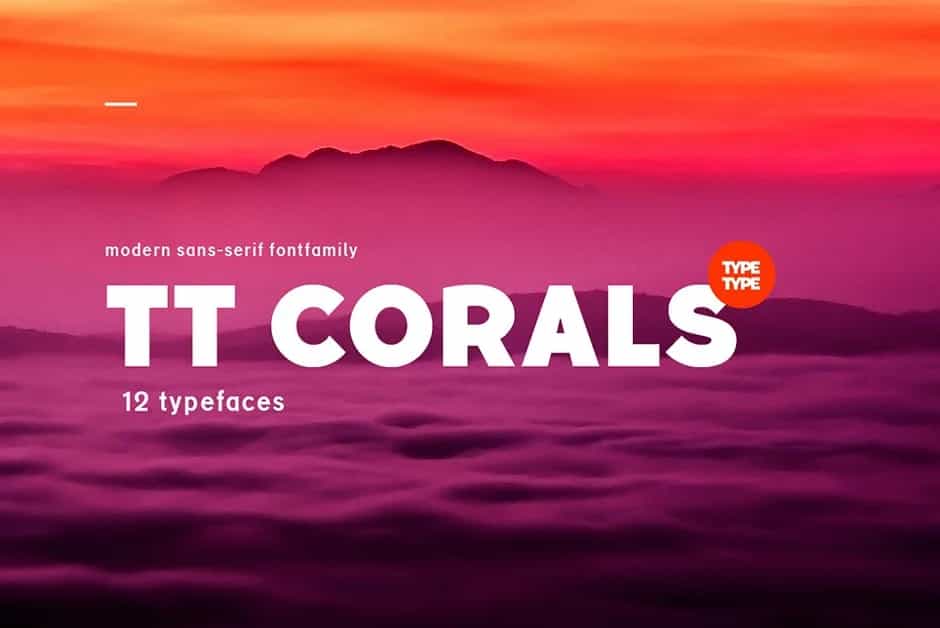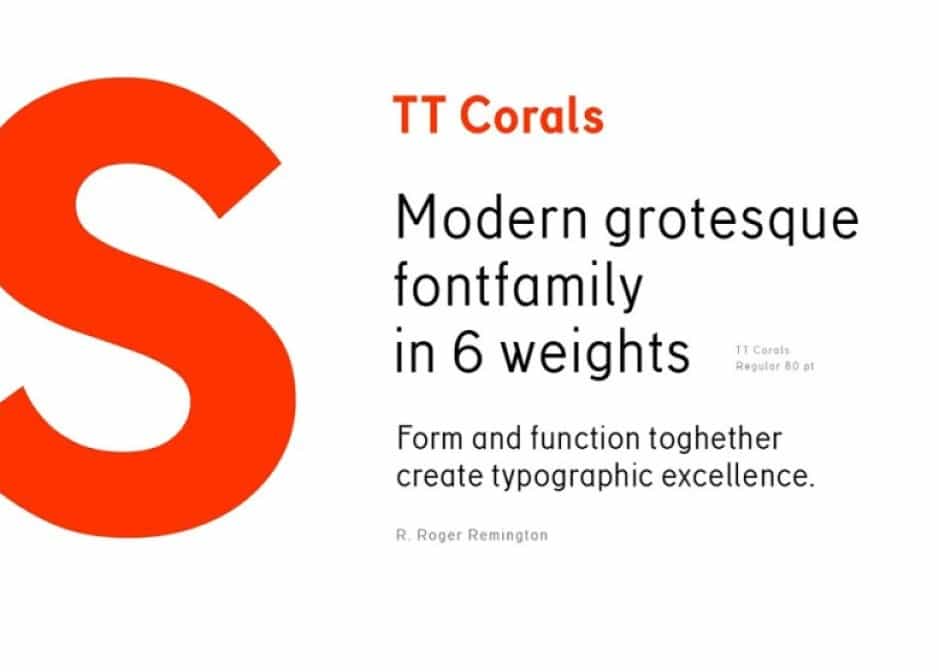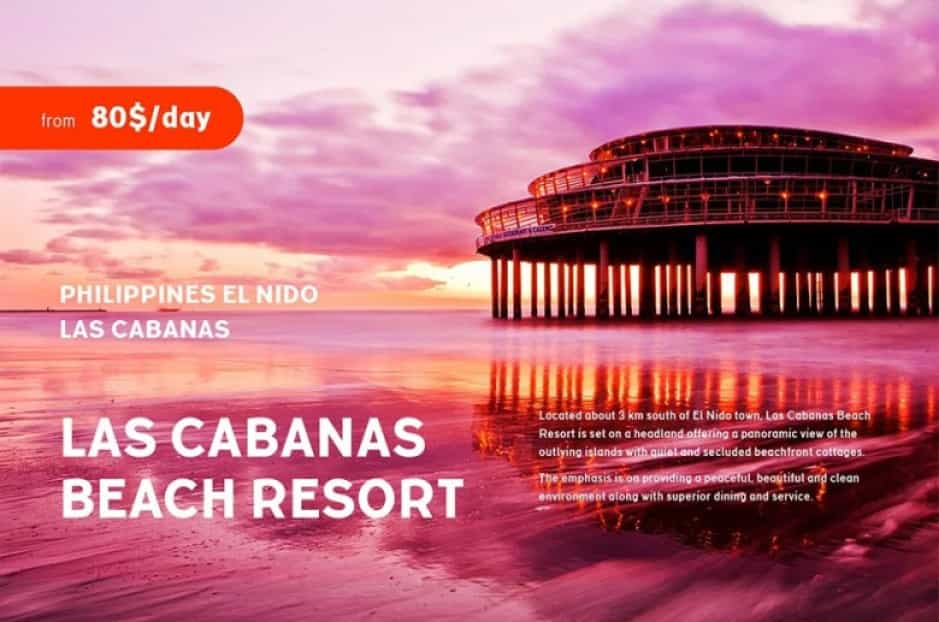
TT Corals is a modern humanist sans-serif font family that has many common characteristics of the beginning of the twentieth century. For increased functionality, we created 6 styles of various weights: The options that are available include thin, light, regular, bold, extrabold and black. Due to the fact that TT Corals has smooth lines and individual components, they can be utilized for several design purposes.